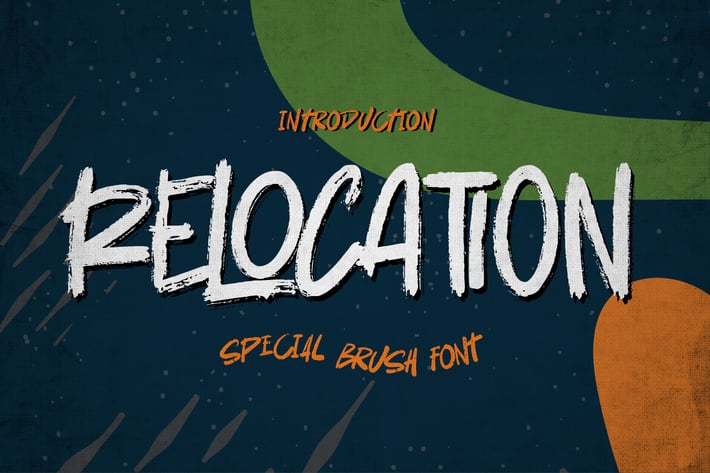
Relocation - Rough Brush horror font
Meet = Relocation,
Bold handmade Rough Brush Font with ligature and Multilanguage support.
Best for halloween poster, horror poster, childrenbook, cartoon, comic etc
+ Standard glyphs and ligature inside